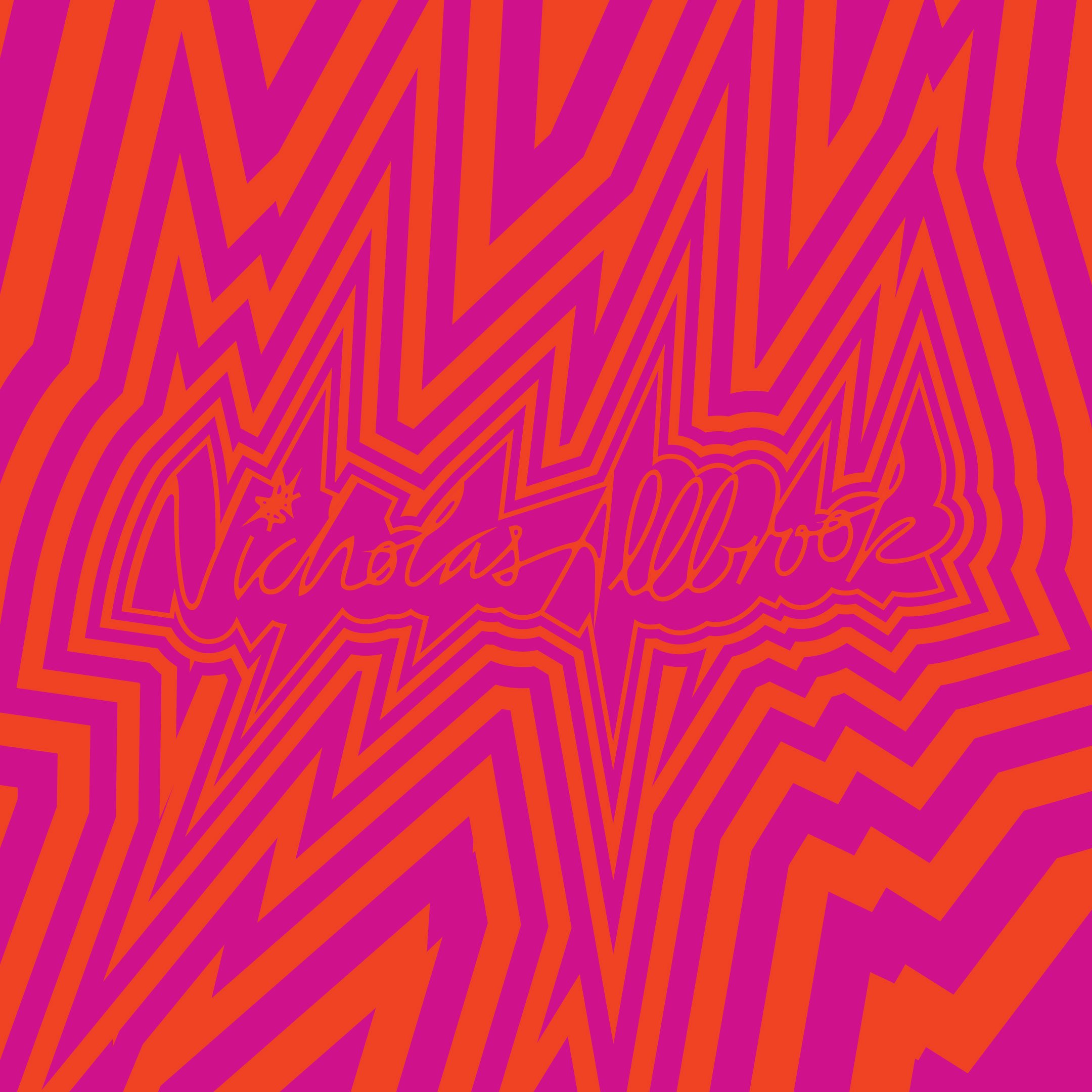
Manganese
Packaging the wildly creative vulnerability of Pond frontman Nicholas Allbrook.
Spinning Top Music / Nicholas Allbrook
Vinyl packaging and custom typography.
In 2023, Nicholas Allbrook released his fourth studio album, titled ‘Manganese’, his most personal record to date. Best known as the frontman of ‘Pond’, the Australian singer, songwriter and producer again showcased his mastery in writing addictive, left-field, psych-infused pop that wear its heart on its sleeve.
Such a personal work required cover artwork that could present his wildly creative vulnerability to the world, seeking to capture the album’s emotional depth while providing a striking visual identity to promote the project, that could resonate with Allbrook’s distinctive style and personal story.
An intimate portrait shows Allbrook half-undressed, letting his hair down. Custom typography was crafted to contrast the images, not only in its vibrant use of colour and motion, but in its forms. It employs a harsh, jagged, almost geological sharpness, and creates a scratchy, unusual rhythm, at odds with the organic lines of Allbrook's body. Rendered in gold (and printed in foil), it is a vein of manganese metal sending ripples through the artwork.